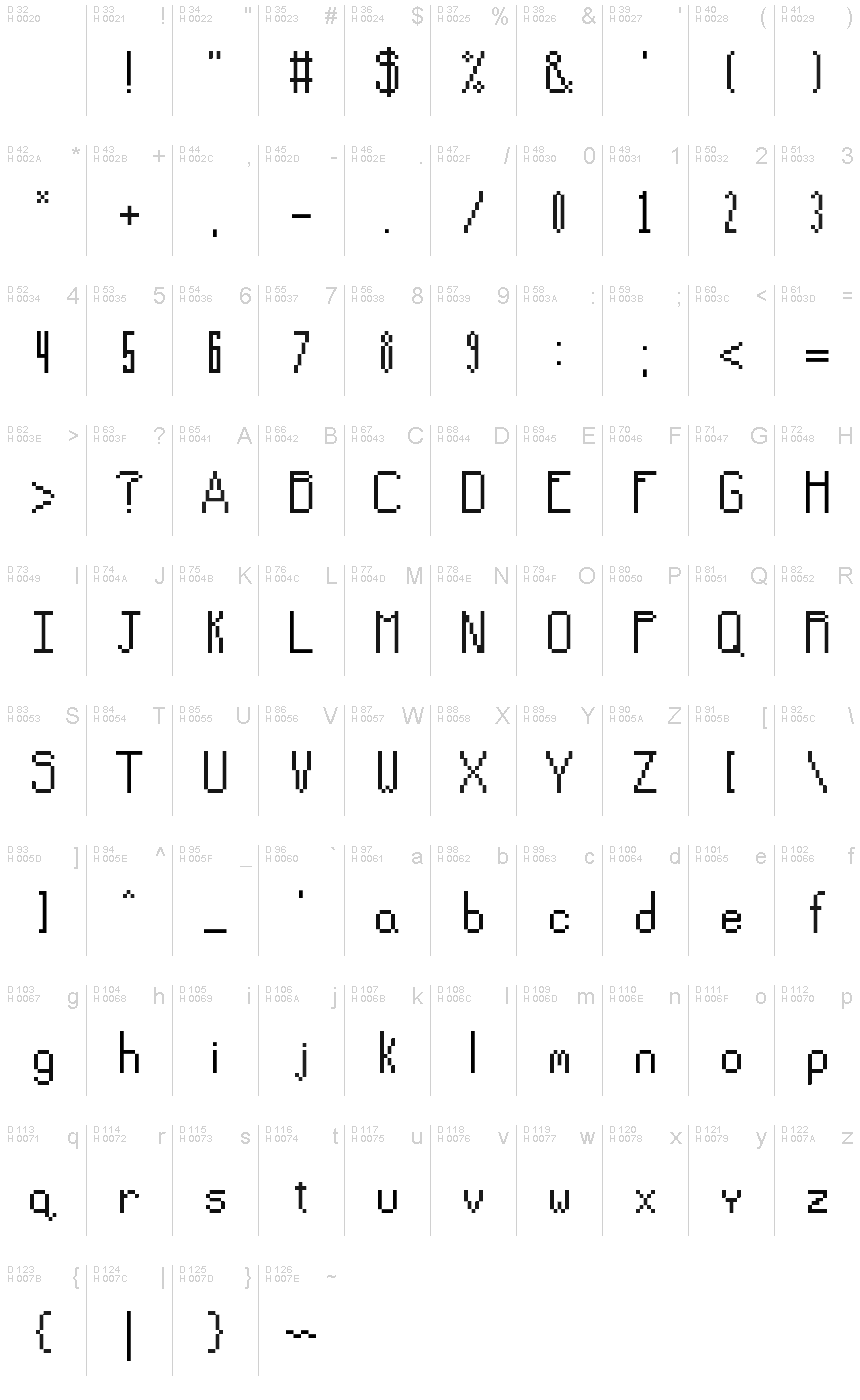
Hey, I took my time making this font, its pretty stylized and I hope you like it! If you wanna use it for anything professional (Anything you do for profit) Please contact me first at MikeRLantz@yahoo.com! Also, if you really liked it, maybe gimme a lil donation-ey-poo? pay for my lunch o3o?